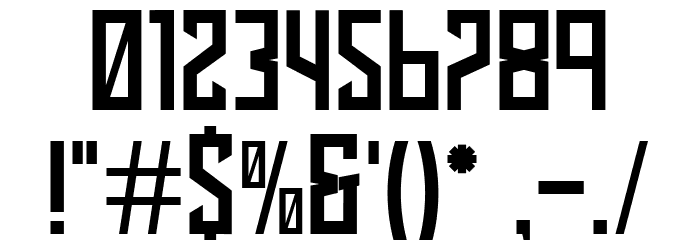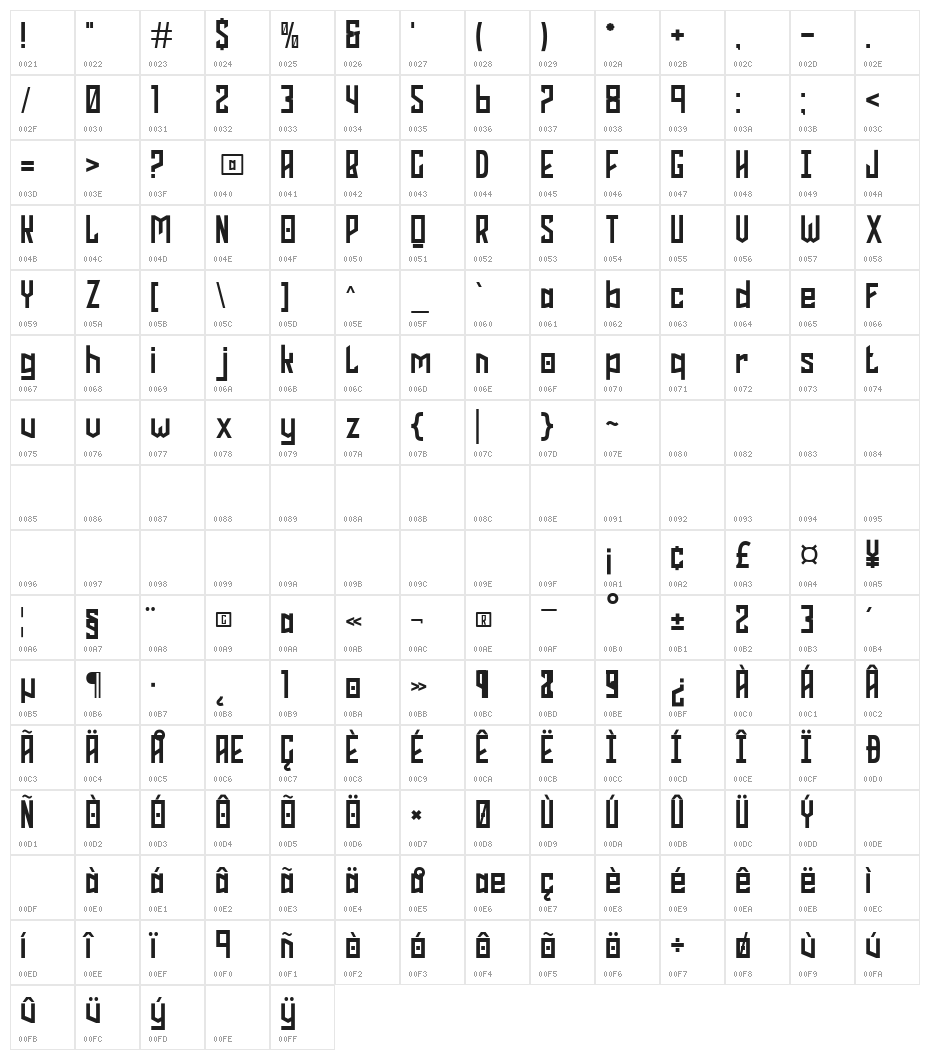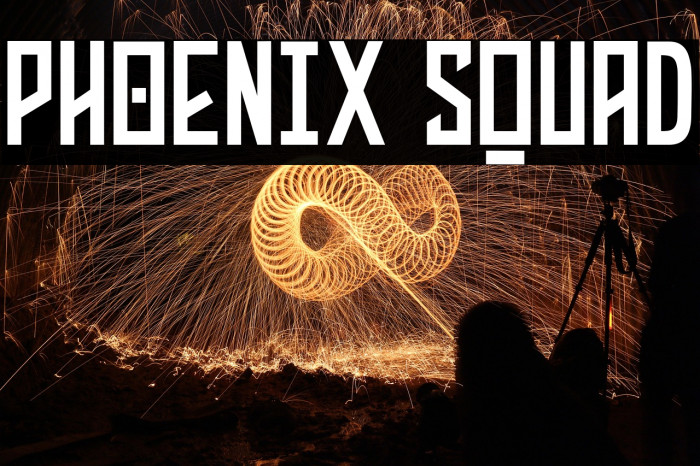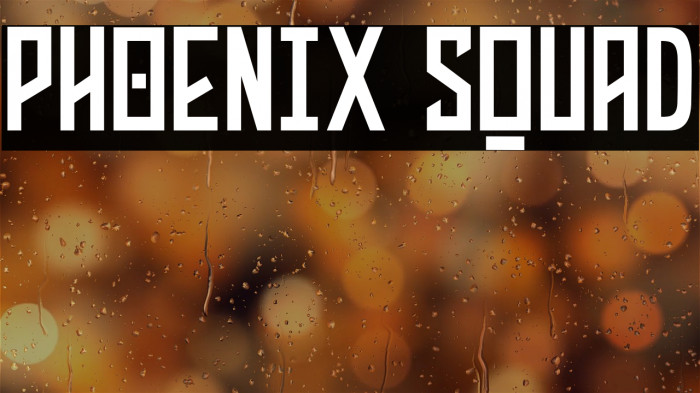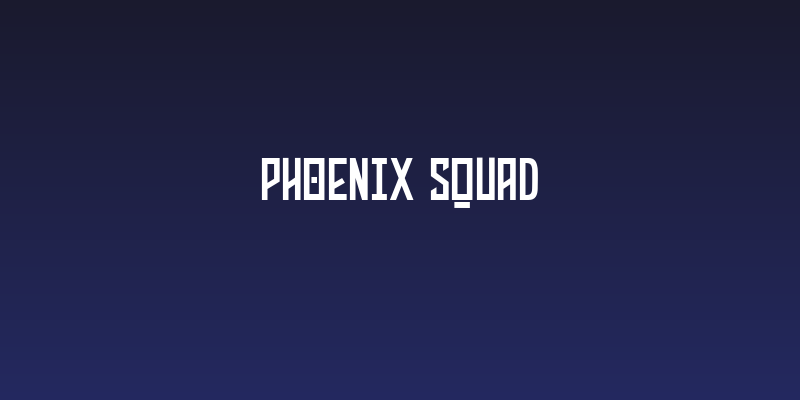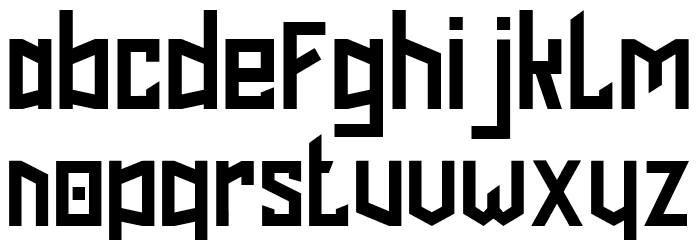
PHOENIX SQUAD Font
PHOENIX SQUAD Description
This font features a bold, geometric design with sharp angles and a futuristic aesthetic. The uppercase and lowercase letters maintain a consistent height, creating a uniform appearance. The characters are constructed with straight lines and sharp corners, giving them a modern and edgy look. The numbers and special characters follow the same design principles, ensuring cohesion across all elements. The font's unique style makes it stand out, with a strong presence that commands attention.
| Overall Style | Futuristic |
| Proposed Projects | Ideal for sci-fi themed projects, video game titles, posters, and branding that requires a modern and edgy look. |